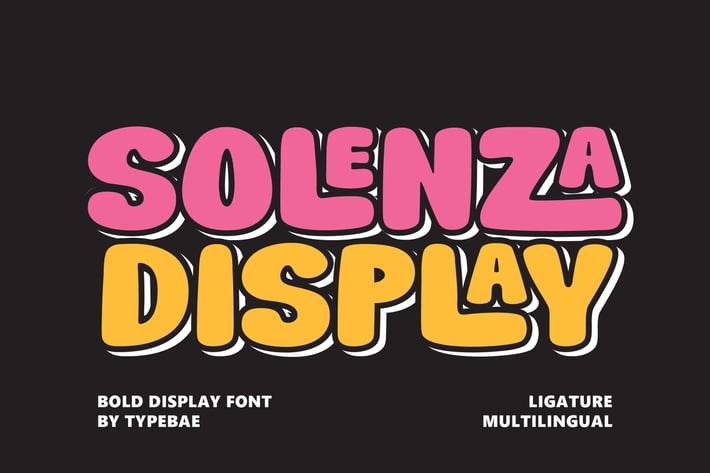
Solenza - Fun Display Font with Ligatures
Solenza is a bold and fun display font that radiates positive vibes. With its cool and playful style, this font comes with unique ligatures and subtle drop shadows. Perfect for adding a touch of retro charm to your designs, Solenza is ideal for posters, invitations, and anything that needs a burst of positive energy.